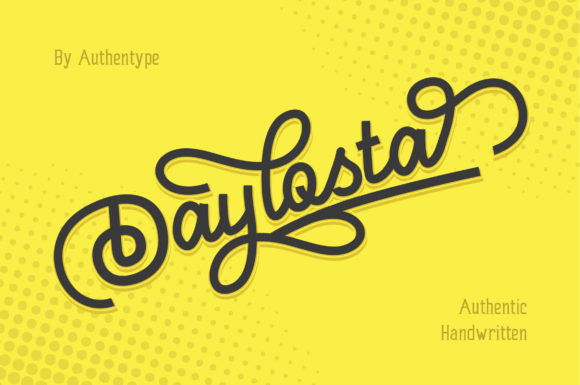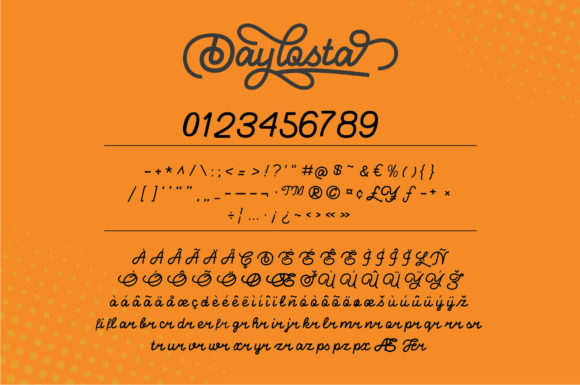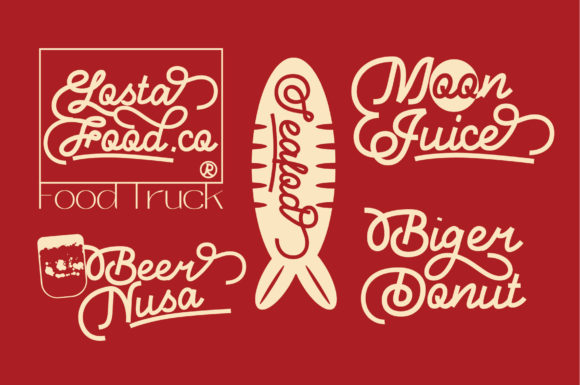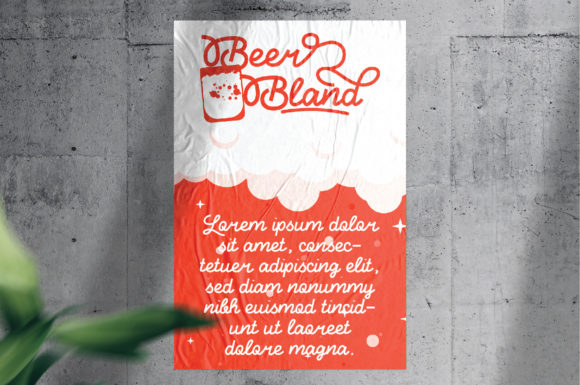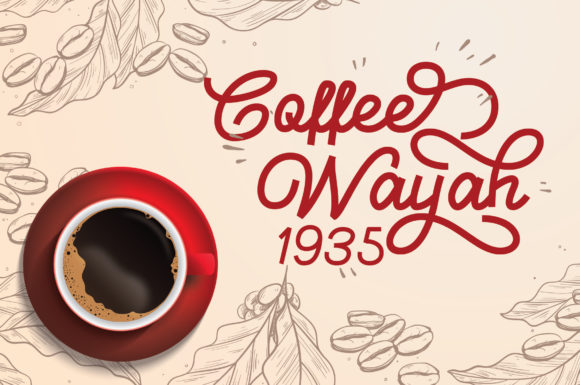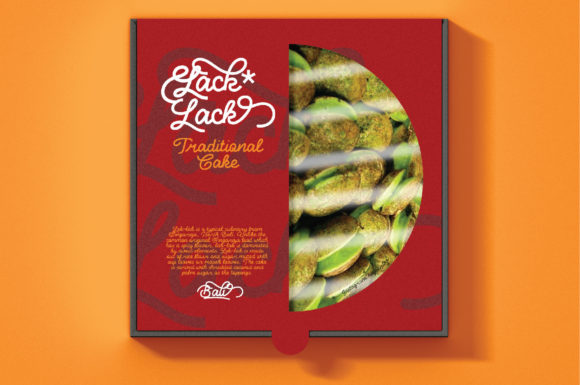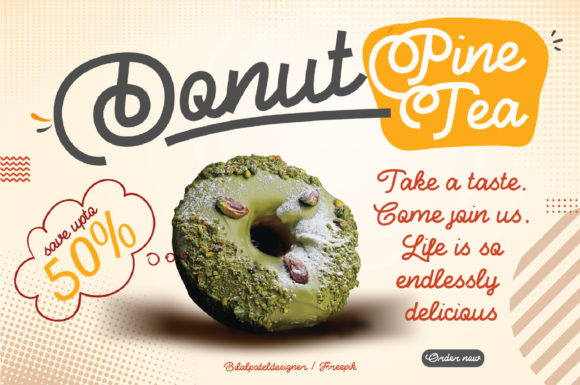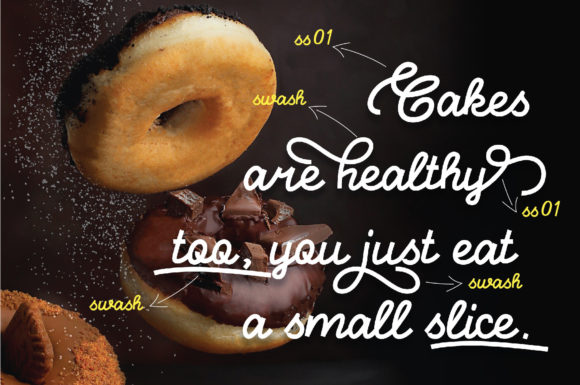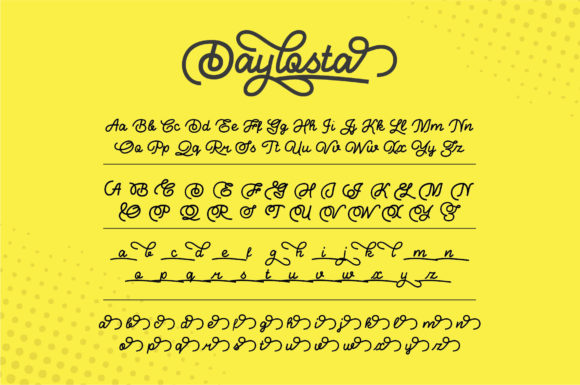
Daylosta Font
About Daylosta Font
Daylosta is an elegant and graceful handwritten font that adds a touch of sophistication to any design project. With its flowing and delicate letterforms, this font brings a sense of elegance and charm to your creations.
One of the standout features of Daylosta is its versatility. It can be used in a wide range of design projects, from wedding invitations and greeting cards to logos and branding materials. The font’s graceful curves and stylish strokes make it perfect for adding a touch of sophistication and refinement to your designs.
Daylosta is PUA encoded, which means you have easy access to all of its glyphs and swashes. This allows you to explore a variety of stylistic alternates and decorative elements, giving you more creative freedom to customize your designs.
Whether you’re aiming for a romantic and whimsical look or a more modern and chic aesthetic, Daylosta can adapt to your vision. Its versatility allows it to work well in both formal and informal settings, adding a touch of elegance to any context.
To make the most of Daylosta, consider pairing it with complementary fonts, such as sans-serifs or serifs, to create visual contrast and balance. Experiment with different sizes, weights, and color schemes to create captivating compositions.
Fall in love with Daylosta’s intricate details and delicate beauty. Let its versatile style inspire you to create spectacular designs that capture attention and leave a lasting impression.